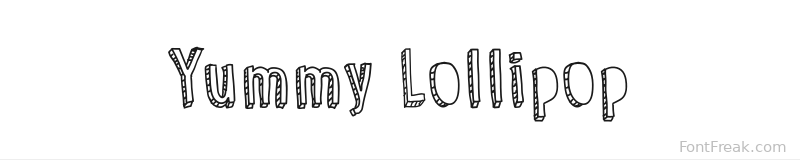
Yummy Lollipop
About Yummy Lollipop
Yummy Lollipop is a delightful display font designed by Galdino Otten Fonts, perfect for adding a playful touch to your projects. This decorative typeface features a whimsical, hand-drawn aesthetic that captures the essence of childlike wonder. With its bold stroke weight and lively character shapes, Yummy Lollipop stands out with a unique flair that is both inviting and cheerful. The spacing between letters is relaxed, enhancing its readability while preserving its fun, informal vibe.
This font is ideal for a variety of creative applications. It shines in contexts like birthday party invitations, where its playful nature can set a joyful tone. Additionally, Yummy Lollipop is well-suited for restaurant menus, especially for dessert shops or cafes looking to evoke a sweet and friendly atmosphere. Its charming design also makes it a great choice for children's book covers, where it can engage young readers with its fun appearance. Furthermore, graphic designers will find Yummy Lollipop beneficial for branding projects aimed at a youthful audience, such as toy companies or creative workshops.
In summary, Yummy Lollipop font free download provides an exceptional opportunity to elevate your design work with its charming and playful characteristics. Its unique visual style and versatility make it a standout choice for various creative endeavors, ensuring your projects leave a lasting impression.